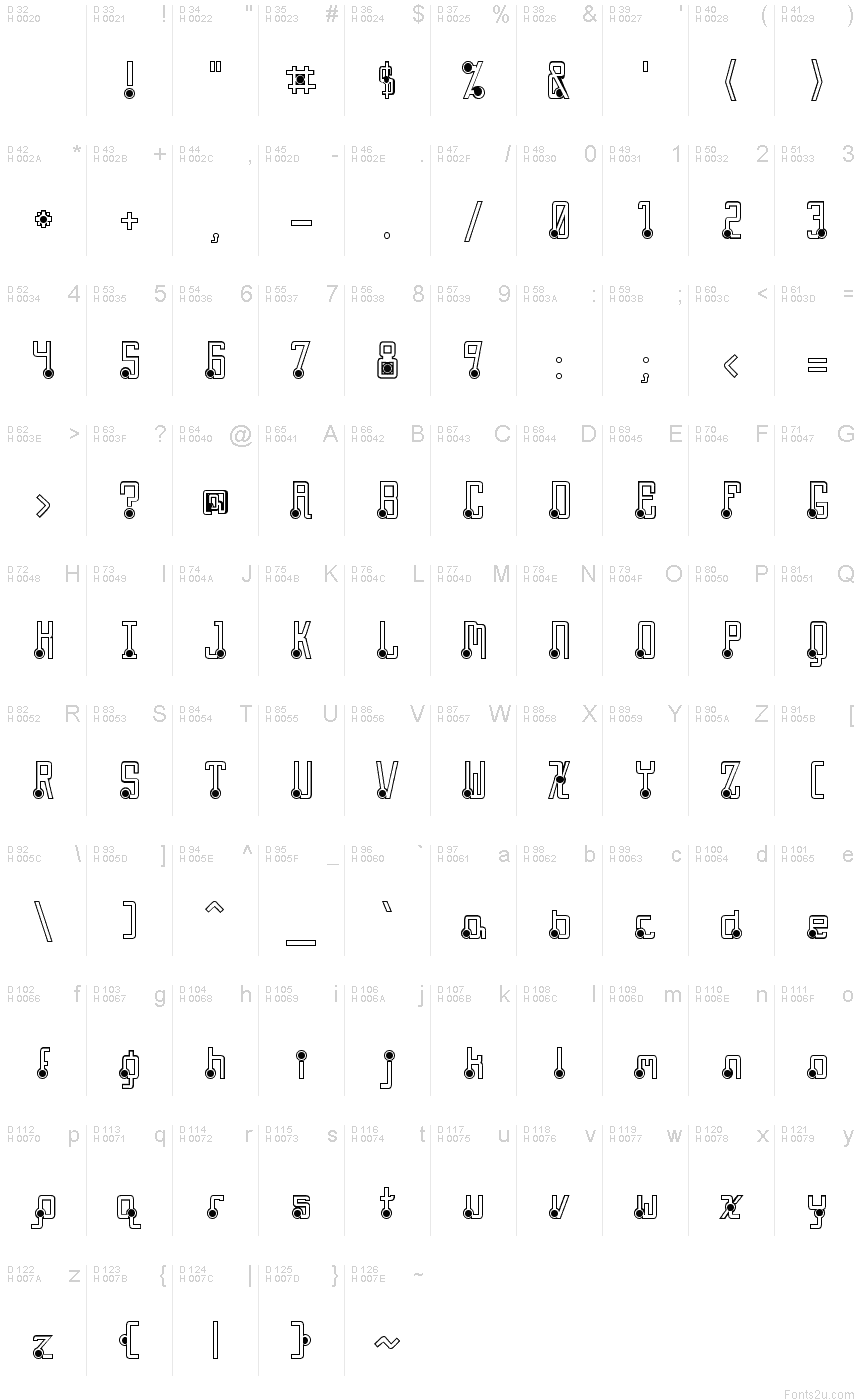
Quasidipitous Black Spot
Quasidipitous Black Spot by OMEGA Font Labs is a free retro-futurist outline display font with rounded, tube-like letters and bold circular spots that lock into the forms like graphic punctuation. The repeated black dots give the font a playful modular rhythm, while the soft corners and double-line build keep it firmly in that late-1990s digital novelty space.
This free font makes sense on posters, club flyers, game titles, zine covers, and short logo work where the spotted motif can do some of the visual talking. It also suits title cards and monograms, since the letters are compact in detail but memorable at a glance, with those orbiting dots turning even a short word into a small graphic.